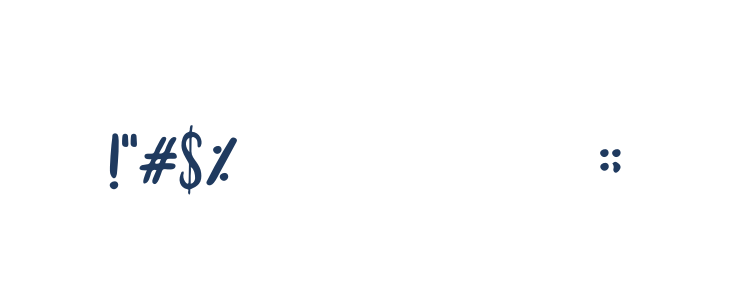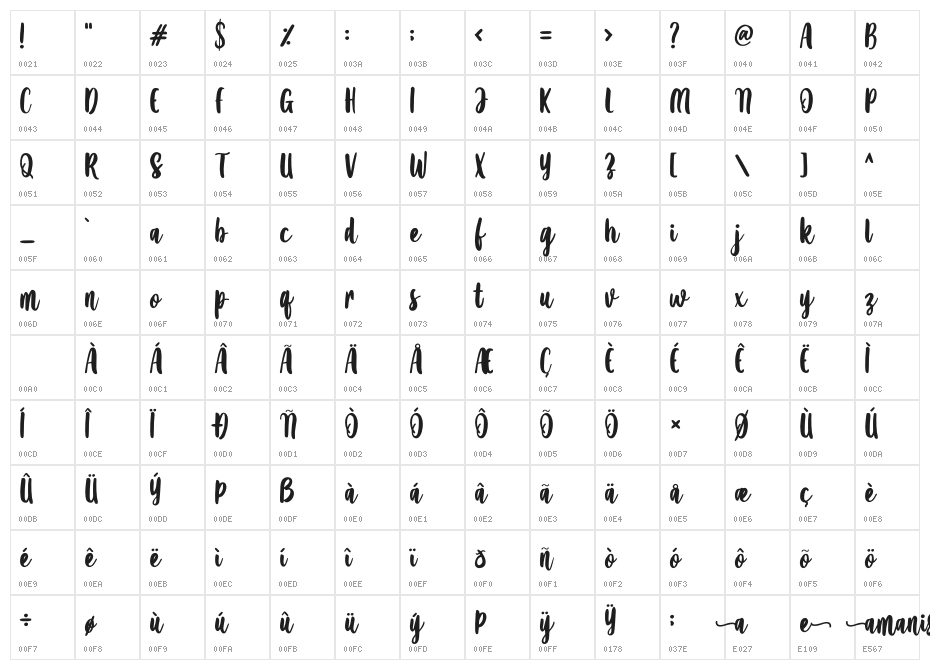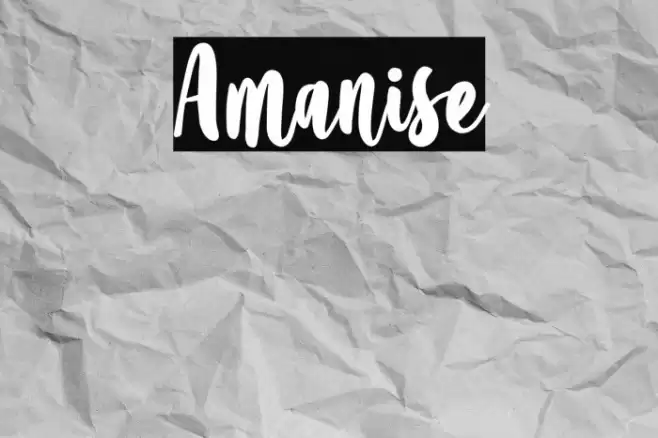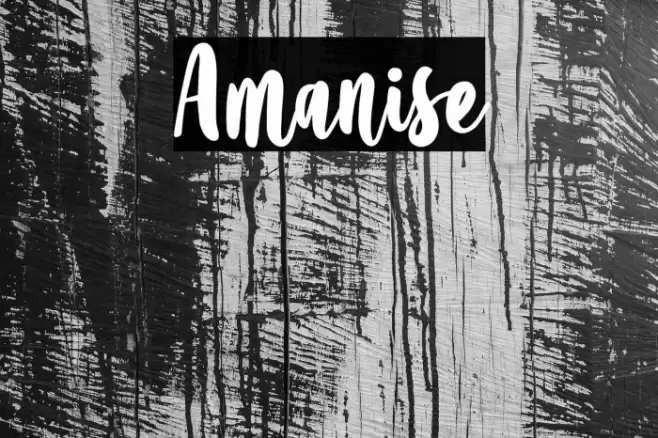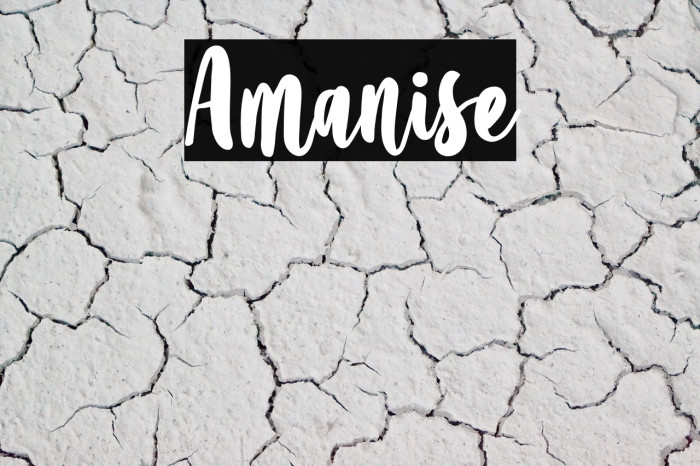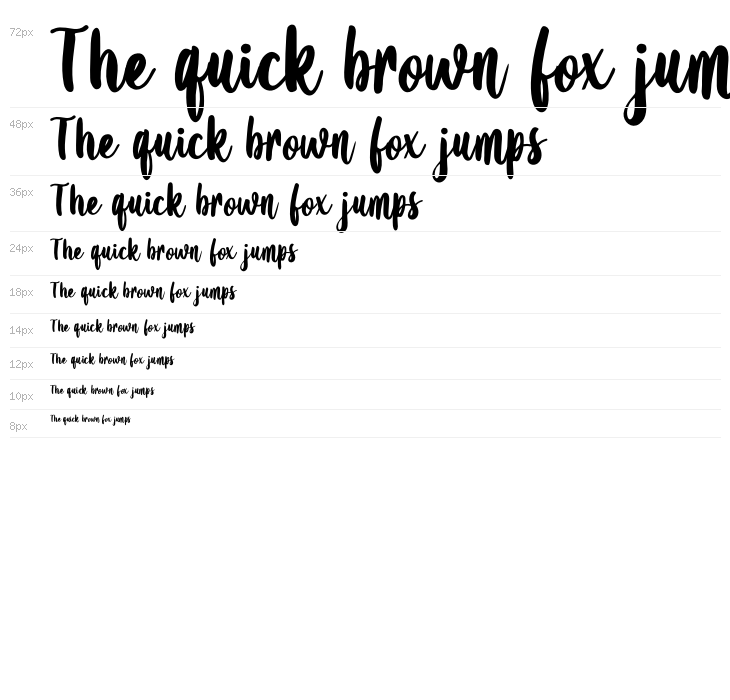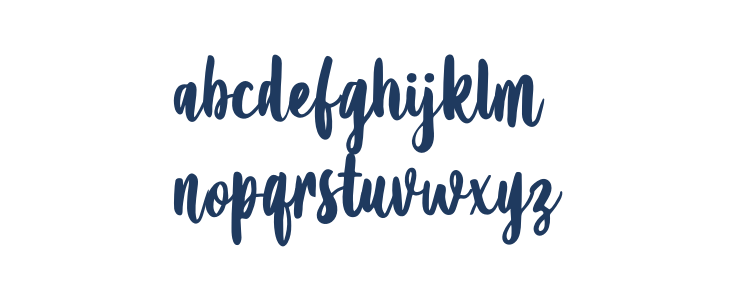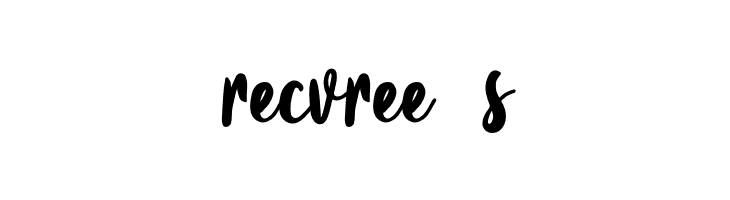
Amanise Font
Amanise Description
This font features a bold and expressive handwritten style, characterized by its flowing, cursive letterforms. The strokes are thick and consistent, giving it a strong presence on the page. The uppercase letters are tall and slightly condensed, while the lowercase letters maintain a playful and casual appearance. The font includes a full set of uppercase and lowercase letters, numbers, and a selection of special characters. Its overall look is both modern and artistic, making it suitable for creative projects that require a personal touch.